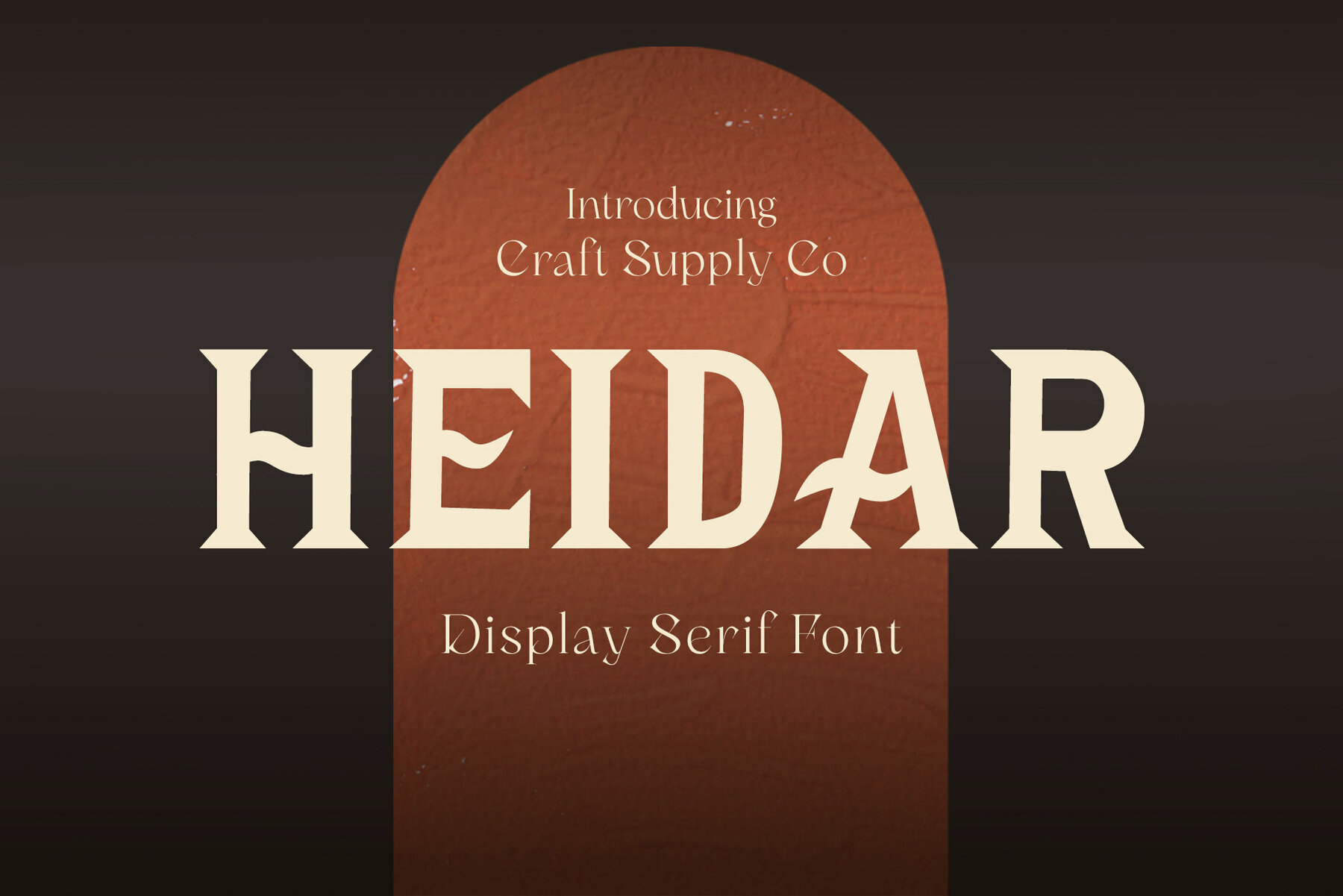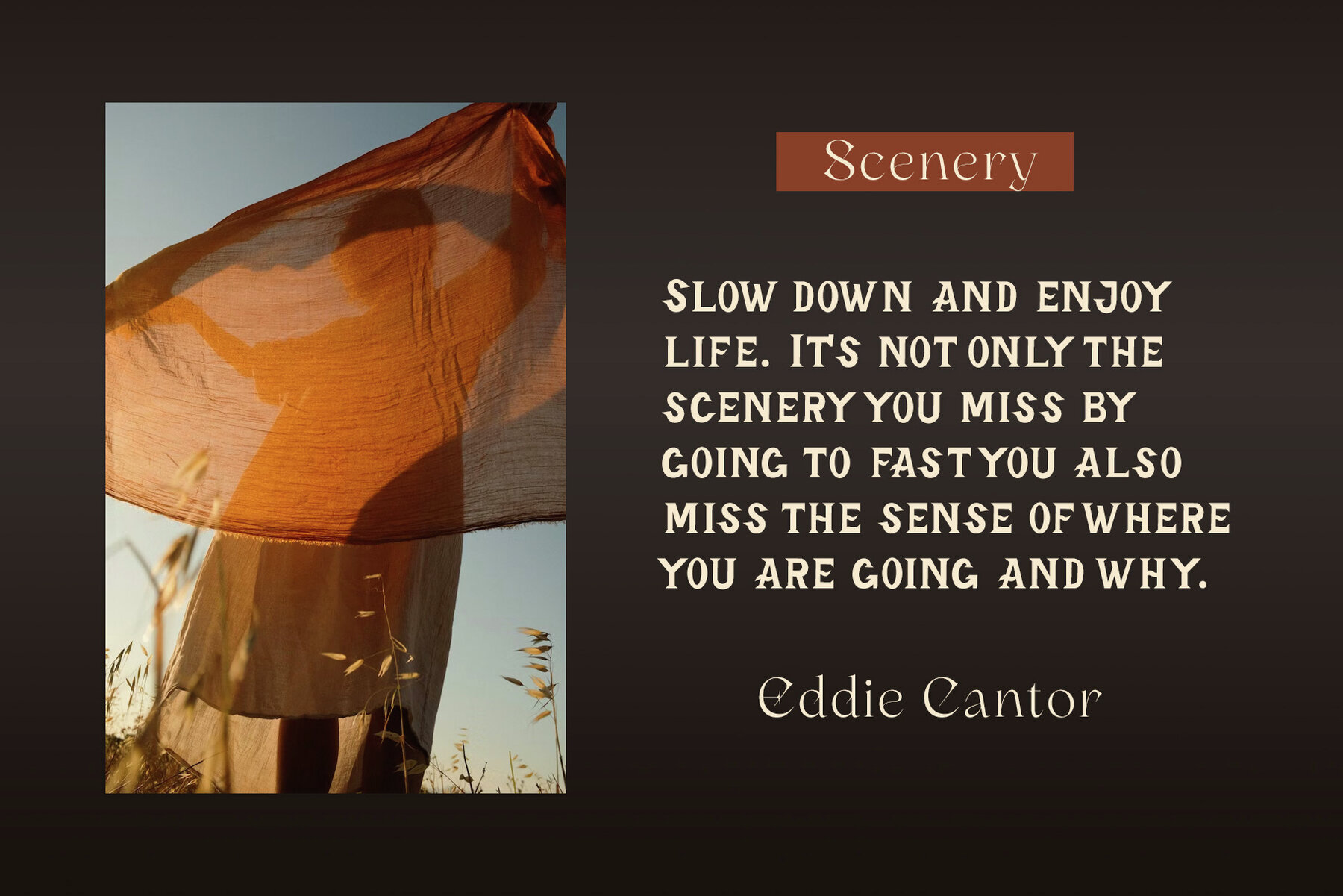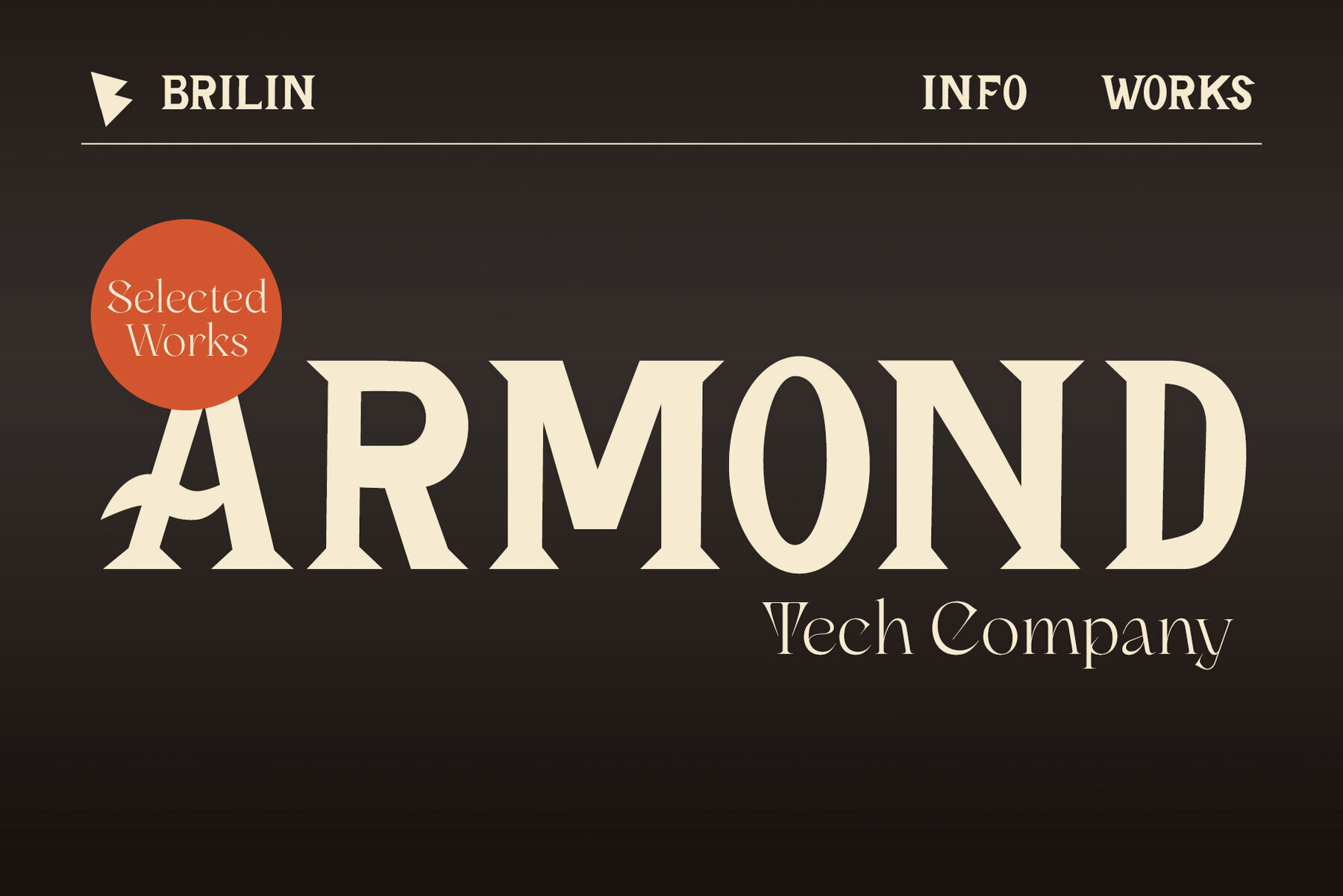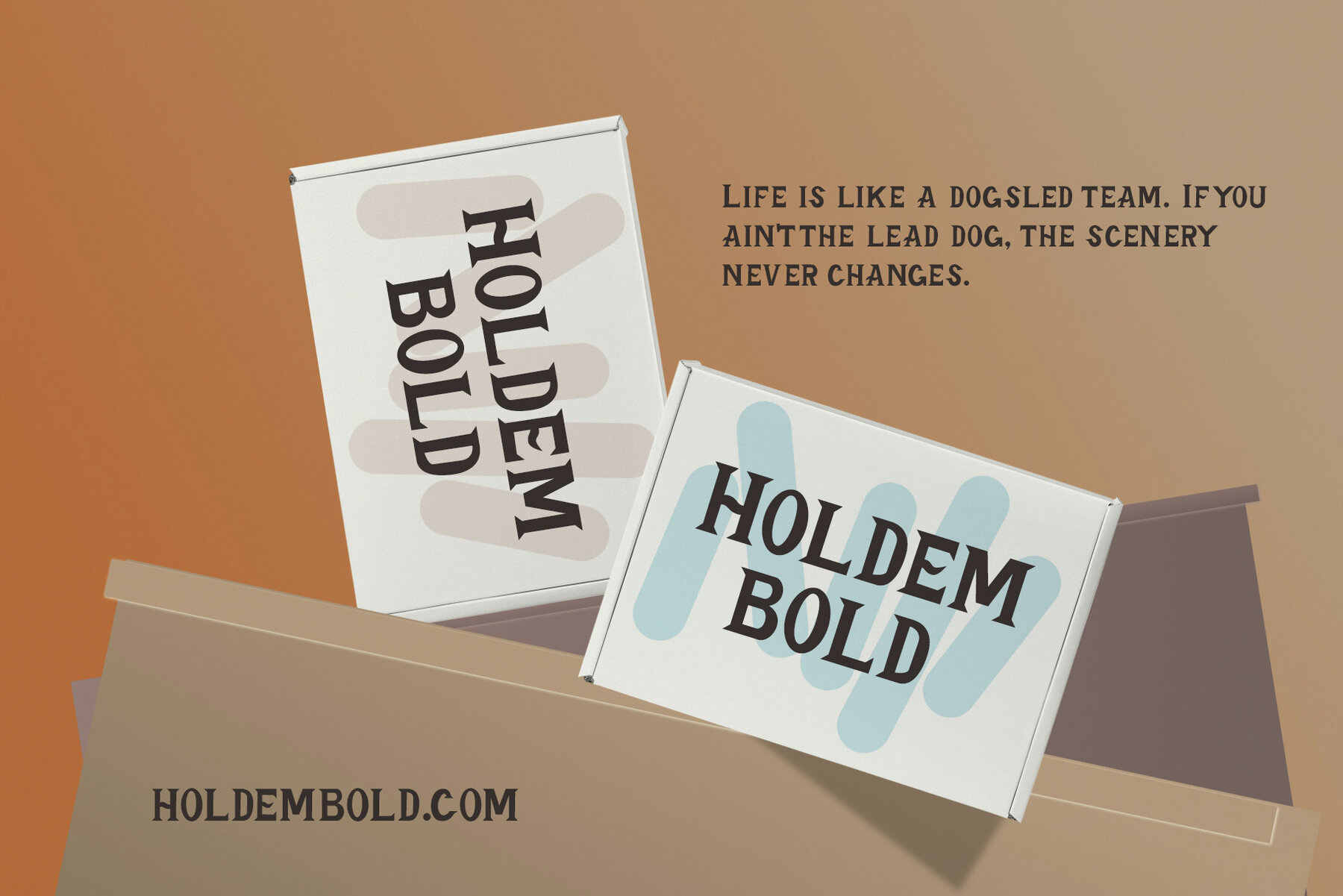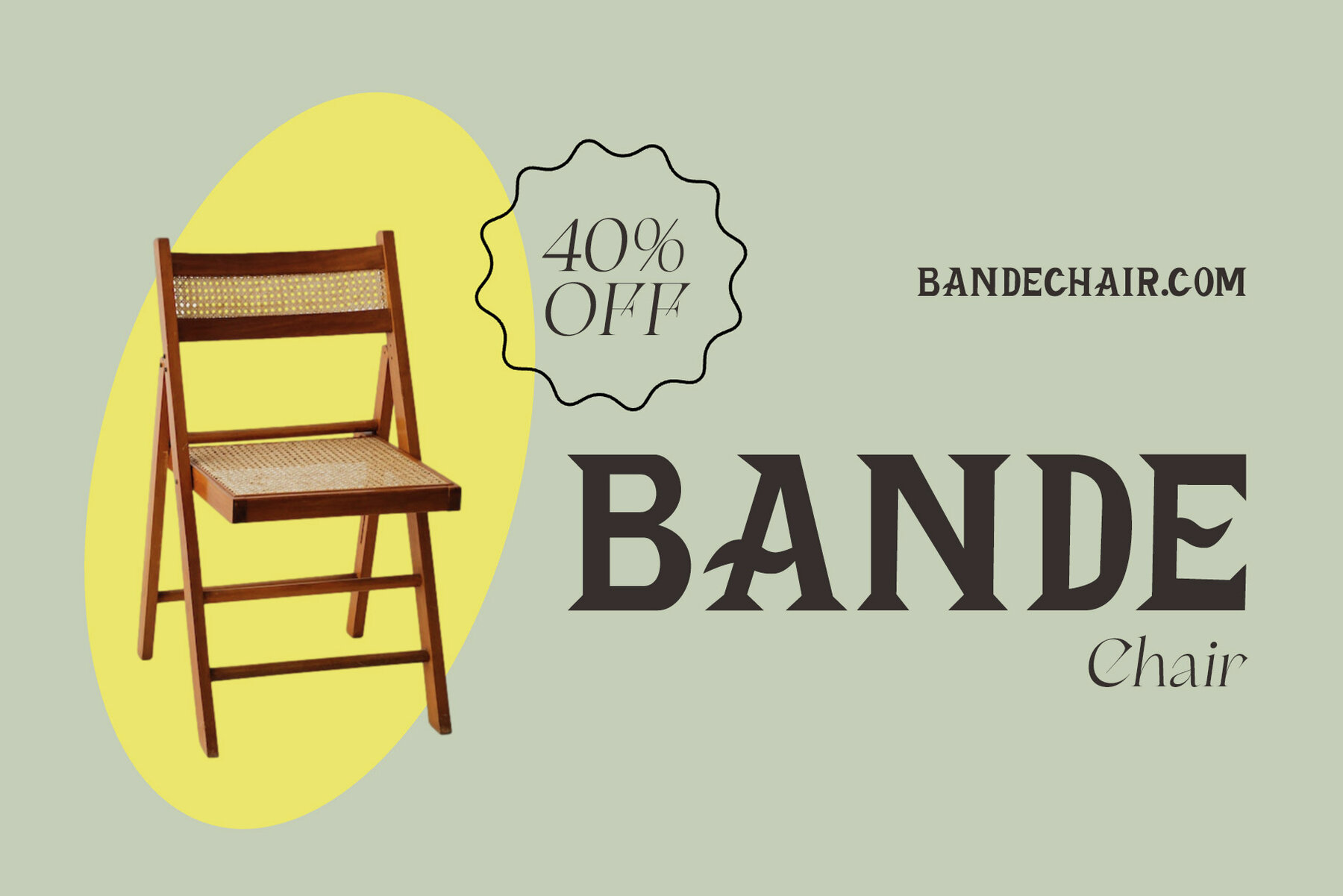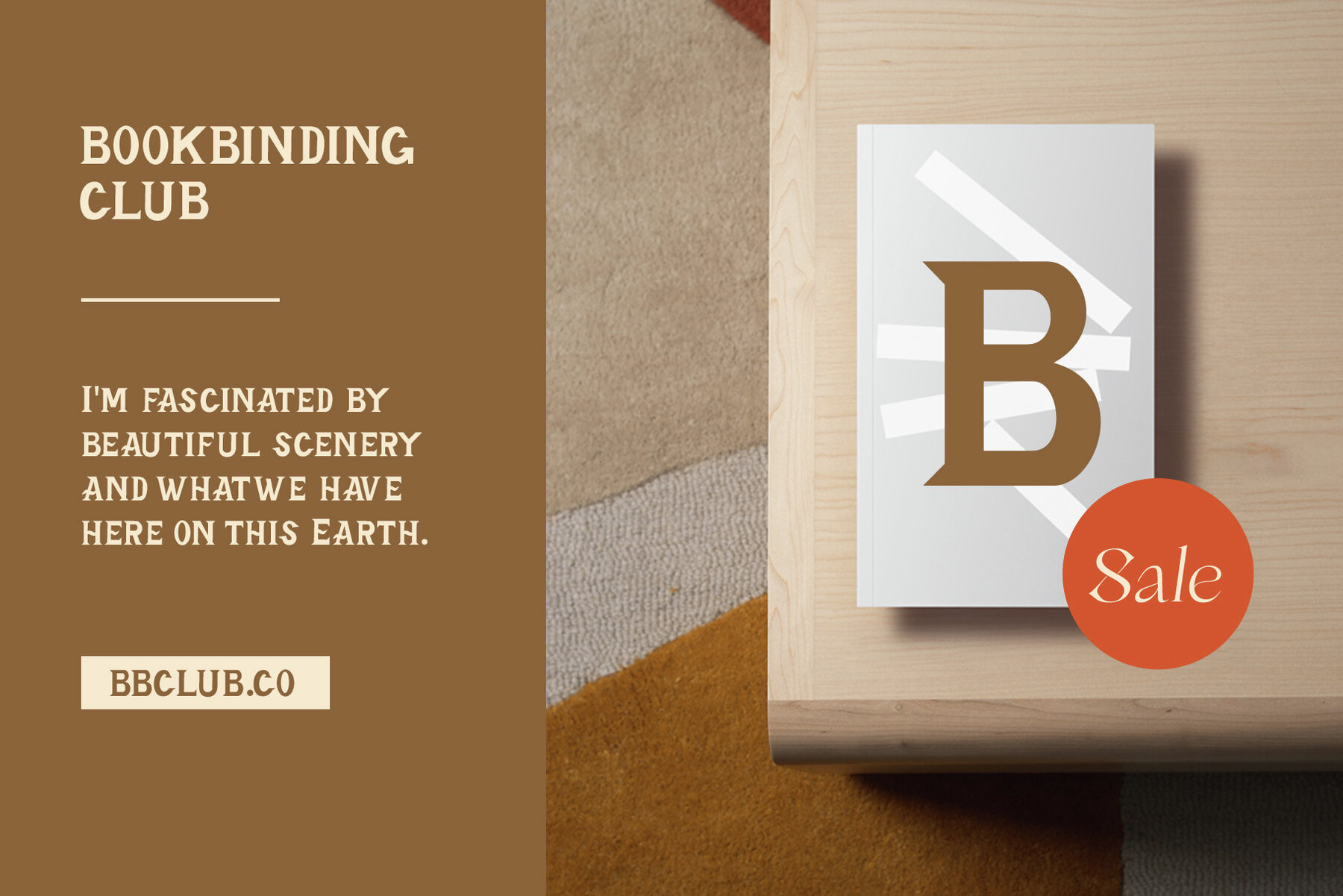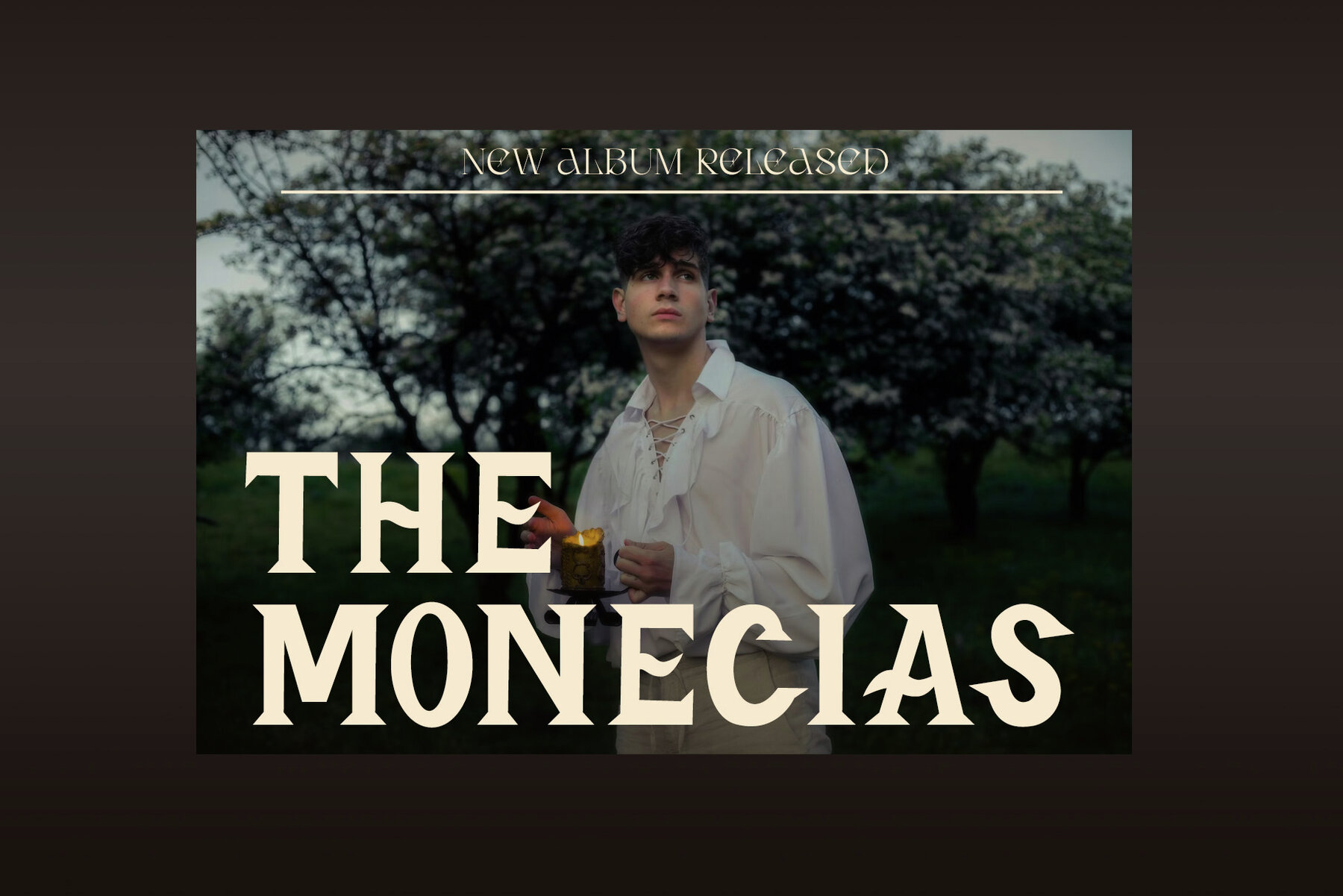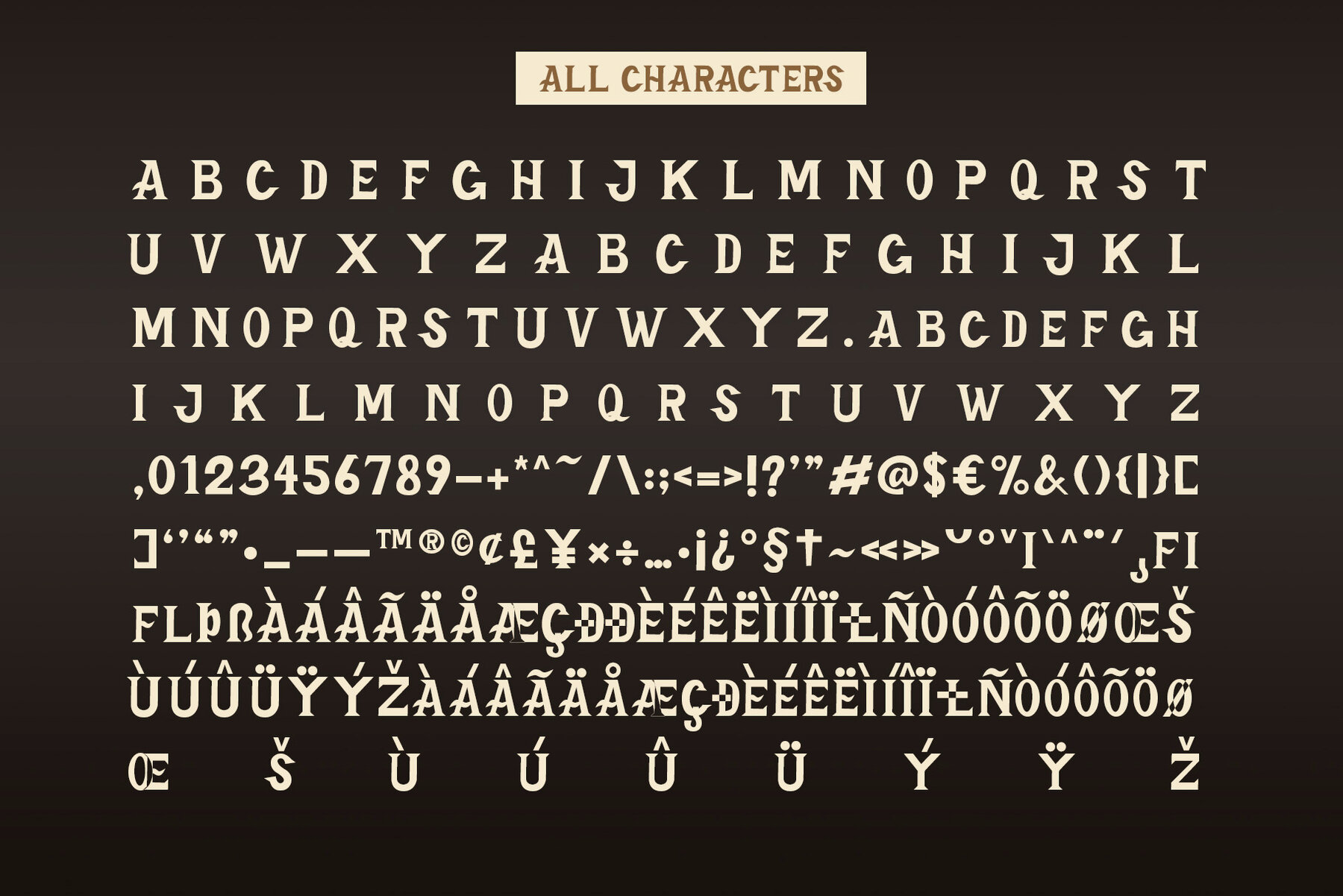
Heidar Font
Heidar Regular
Experience the robust elegance of the Heidar font, where each letter stands resolutely, strokes convey confidence, and designs communicate with authority. Perfect your artistic creation with this typographic powerhouse that transforms words into captivating narratives. Heidar is ideal for greeting cards, packaging, brand identities, posters, and any project that demands a trendy, eye-catching design. Let your creativity flow with this versatile typeface! No special software is required to use this typeface. If you have any questions, please feel free to contact us. Enjoy your crafting and thank you for supporting Craft Supply Co.! Regards, Craft Supply Co.Heidar: A Bold Elegance Serif Font